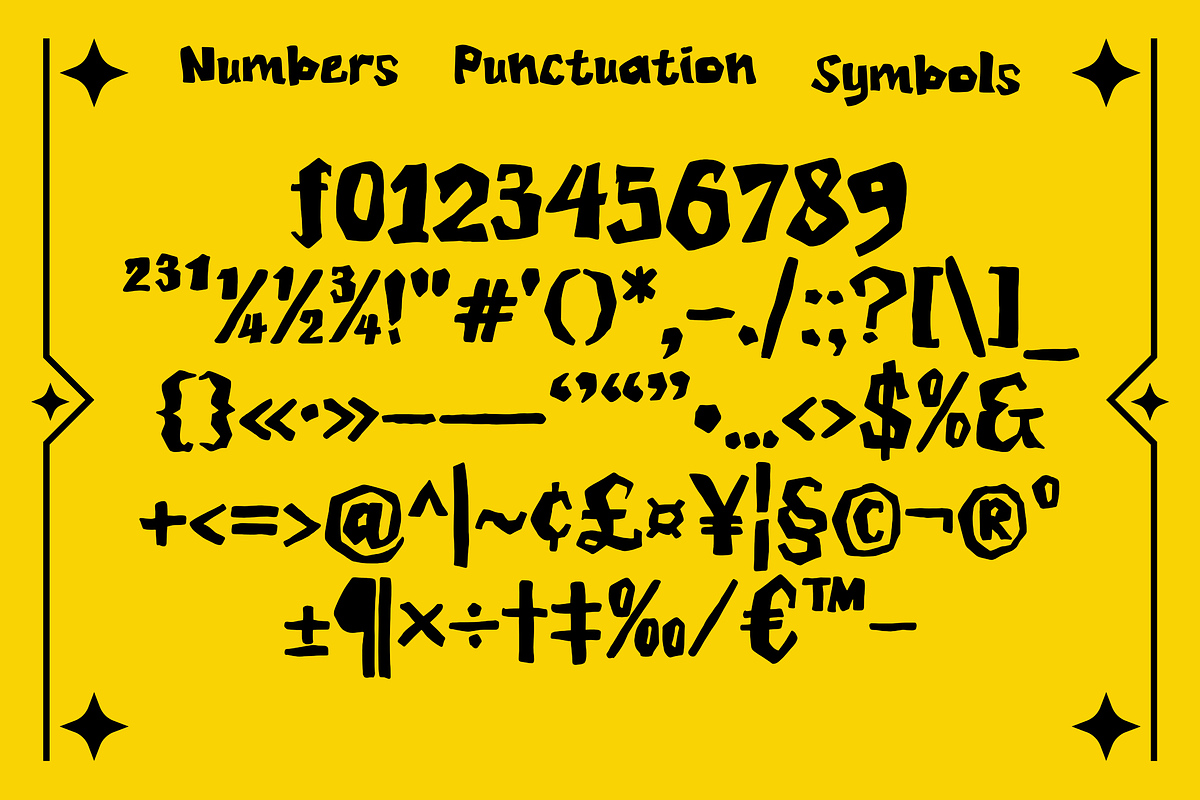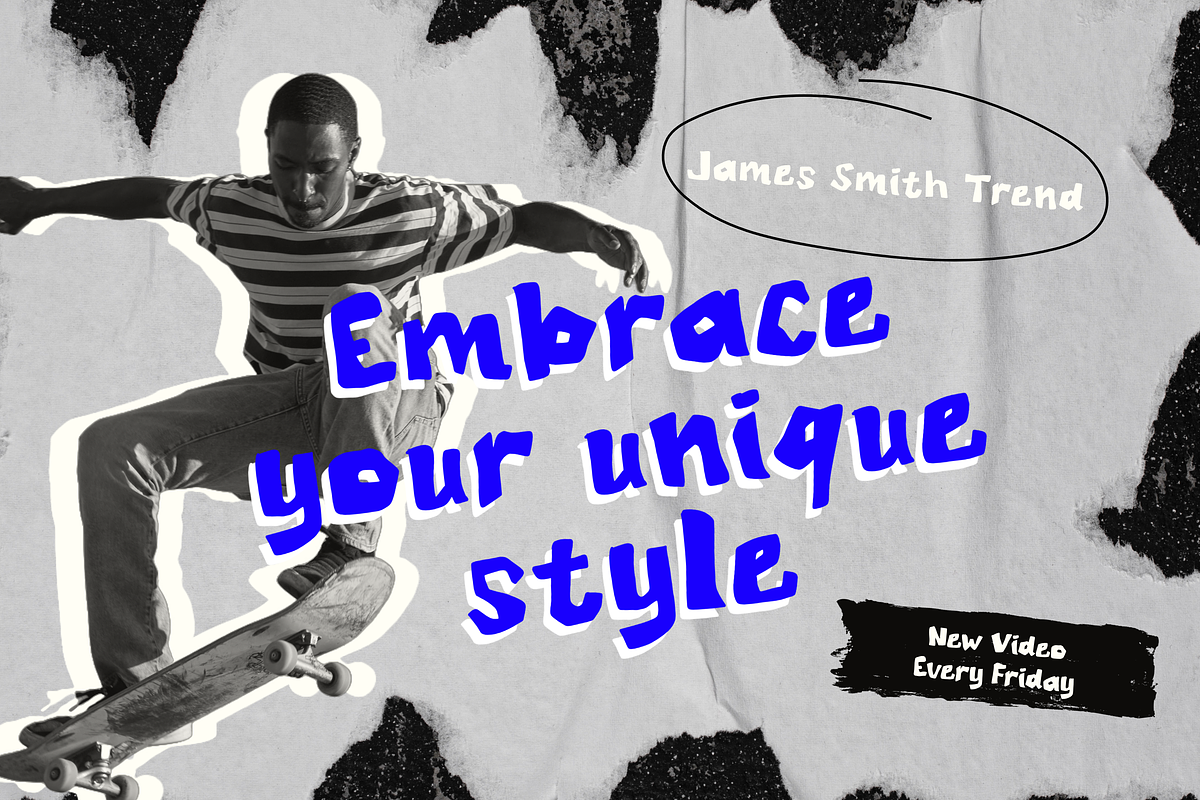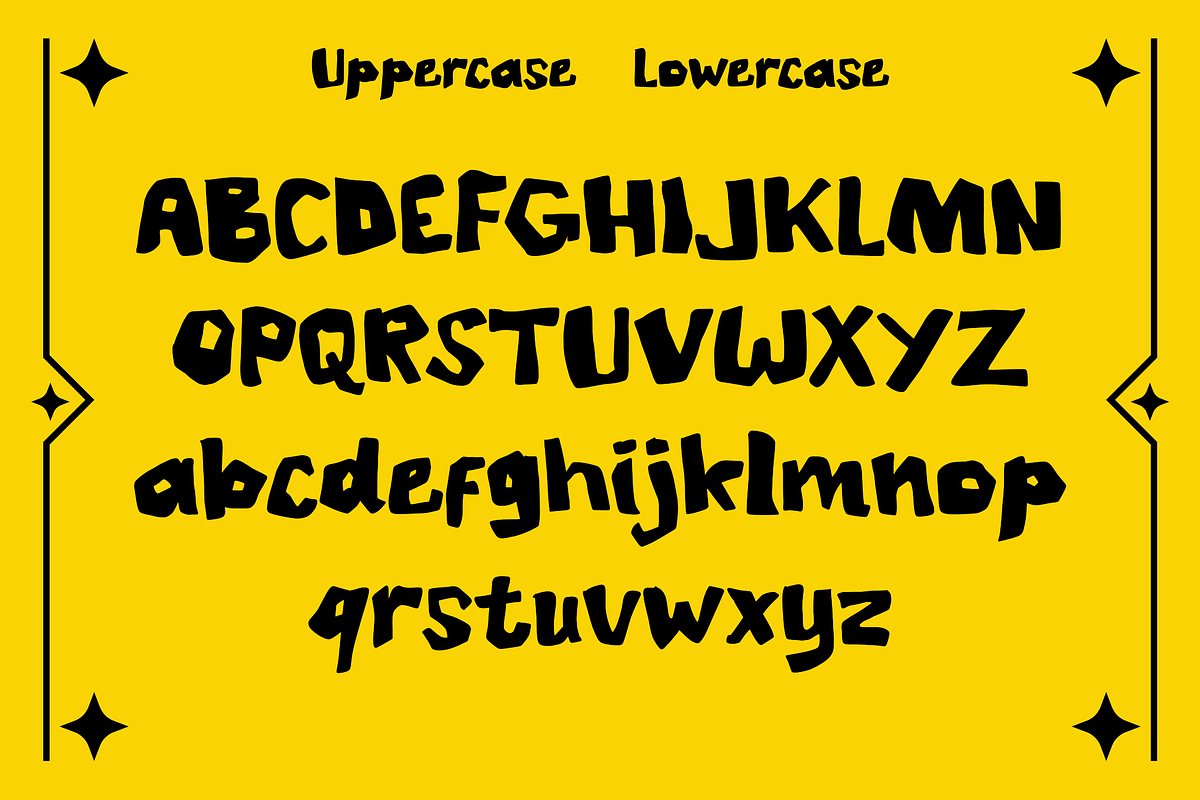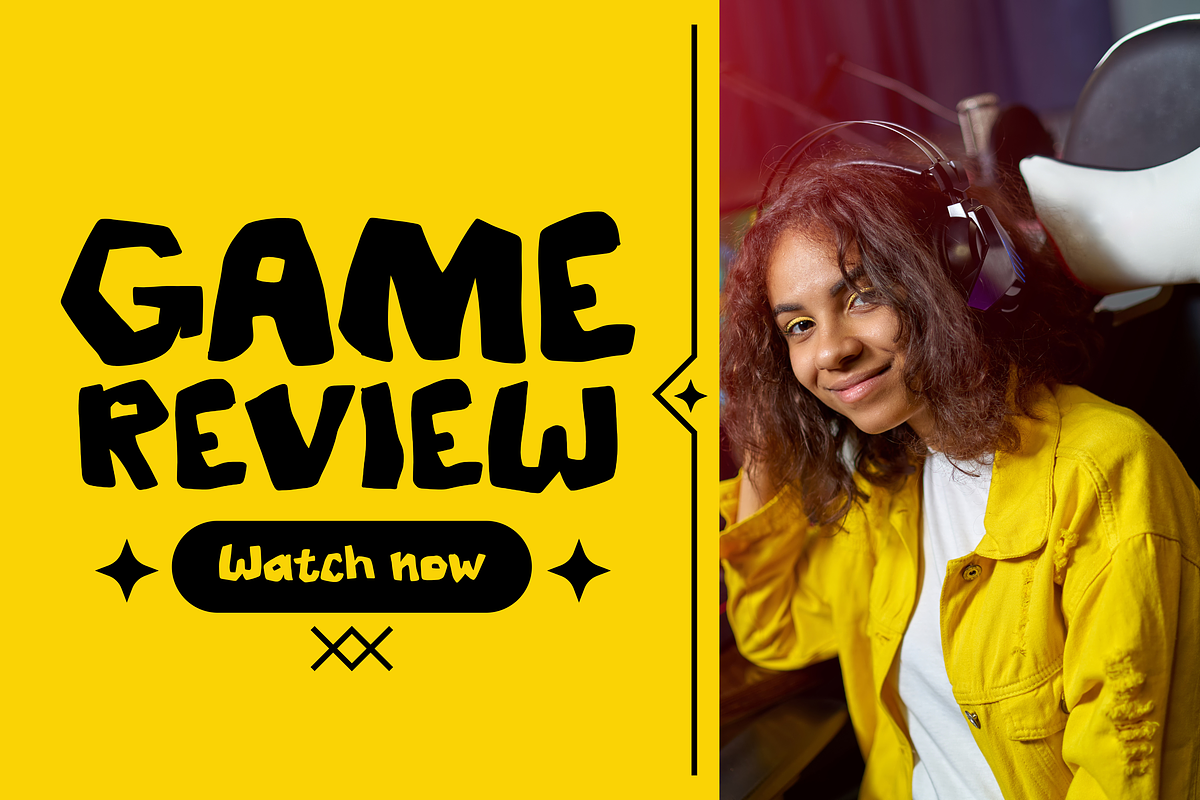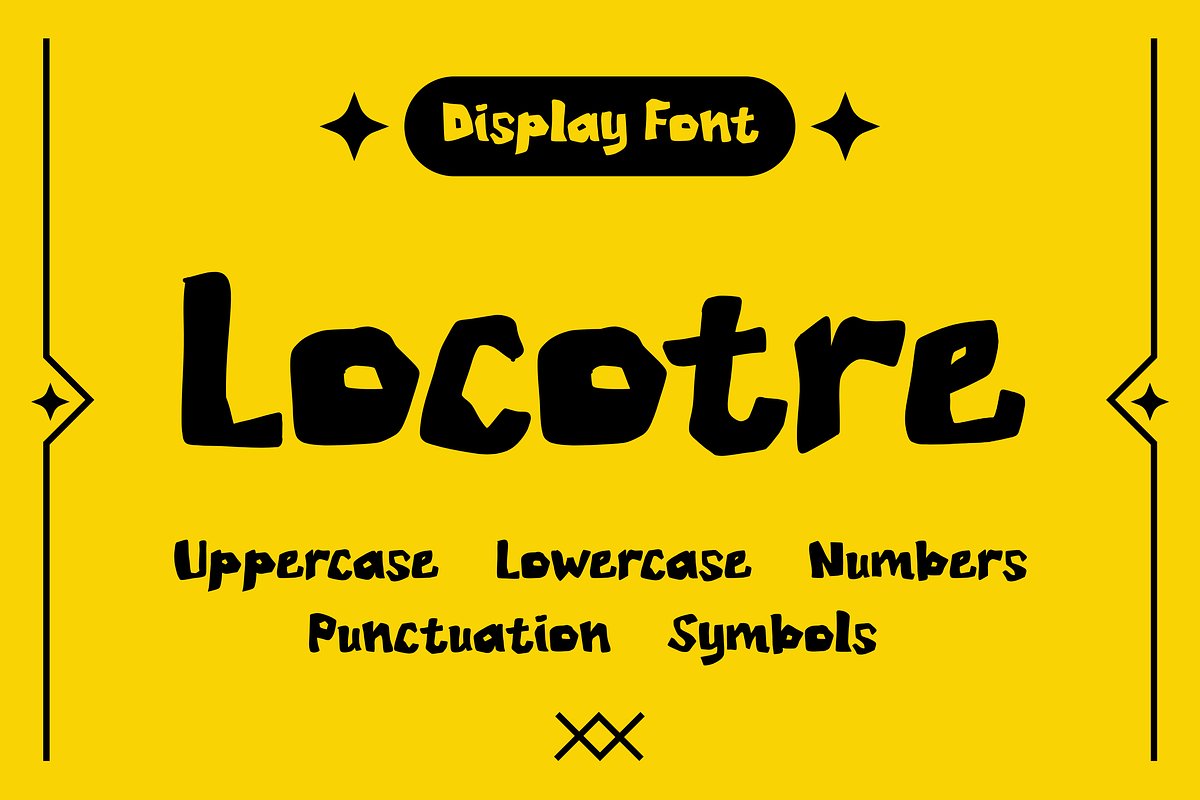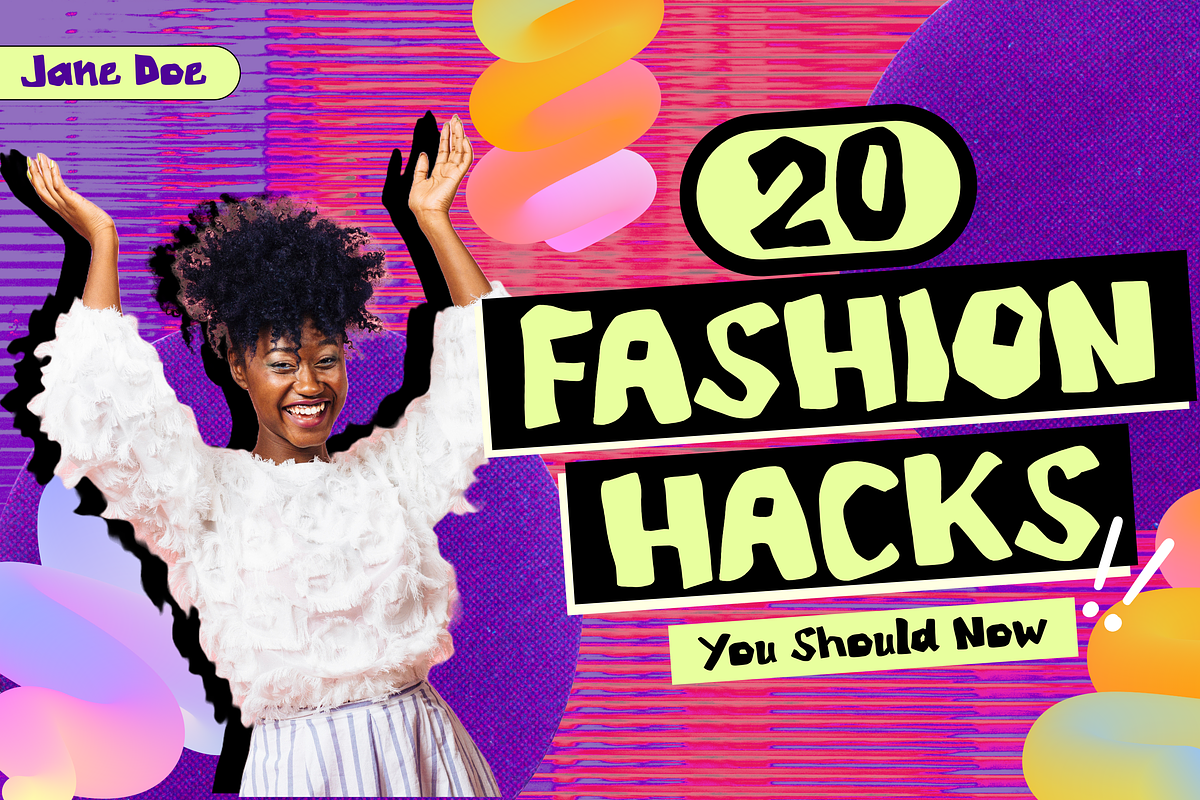
Locotre A Bold Playful Display Font
Locotre is a bold, playful display font packed with cheerful energy and a friendly personality. Designed with unique, organic, and slightly irregular letterforms, this typeface brings a fun, casual, and animated vibe to any design project.
Its high legibility combined with its bouncy, cutout-style character makes Locotre incredibly versatile. It is the perfect choice for eye-catching product packaging, children’s brand identity, playful logo designs, quirky event posters, cartoon headers, and any creative design that aims to spread joy and positive vibes.
Children’s Books, Toys, & Kids Branding
Food & Beverage Packaging (Snacks, Candies, Cafes)
Playful Logo Crafting & Visual Identities
Quirky T-Shirt Designs & Creative Merchandise
Animated Movie Titles & Cartoon Posters
Fun Social Media Graphics & YouTube Thumbnails
Standard Character Set (Uppercase & Lowercase)
Numbers, Punctuation & Symbols